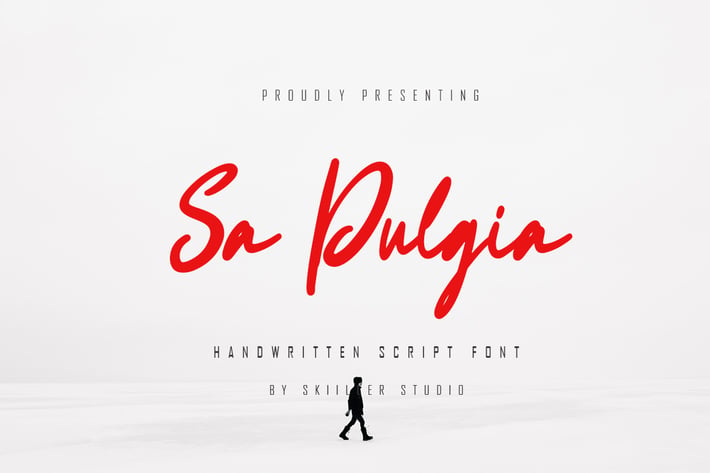
Sa Pulgia - Handwritten Script Font
Sa Pulgia Script Font is a beautiful font script with a modern and cool style designed, suitable for promotion, business, company, clothing, wedding and more
+ Basic Latin Language Support (AÀÁÂÃÄÅCÇDÐEÈÉÊËIÌÍÎÏÑOØÒÓÔÕÖUÙÜÚÛWYÝŸÆß )